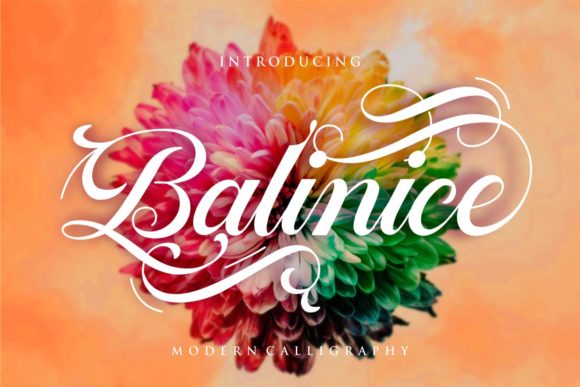
Step into the world of exquisite typography with the Balinice Font, a captivating creation from the talented minds at typelinestudio. This bold calligraphy script is an artistic masterpiece that adds a touch of luxury and elegance to your designs. Dive into the depths of its expressive strokes, where each letter dances with grace and fluidity. It's perfect for crafting logos that demand attention, headlines that leave a lasting impression, and covers that exude an aura of sophistication. Unleash your creativity and let Balinice transform your branding, packaging, tattoos, and logos into visual masterpieces.
With its meticulously crafted swashes, Balinice captivates the eye and sets your designs apart from the ordinary. Imagine your logo adorned with the beautiful flourishes, grabbing attention and leaving a lasting impression on your audience. The headlines you create with Balinice will command attention, inviting readers to delve into your content. And on covers, Balinice's elegant presence will create an aura of intrigue, promising a captivating experience within.
Whether you're a seasoned designer or just starting, Balinice is the perfect tool to elevate your work to new heights. Its versatility knows no bounds, making it ideal for a myriad of projects. Unleash your imagination and let the Balinice Font guide you towards creating stunning visuals that connect with your audience on a profound level. Embrace the power of typography and let Balinice be your creative companion, transforming your designs into works of art.